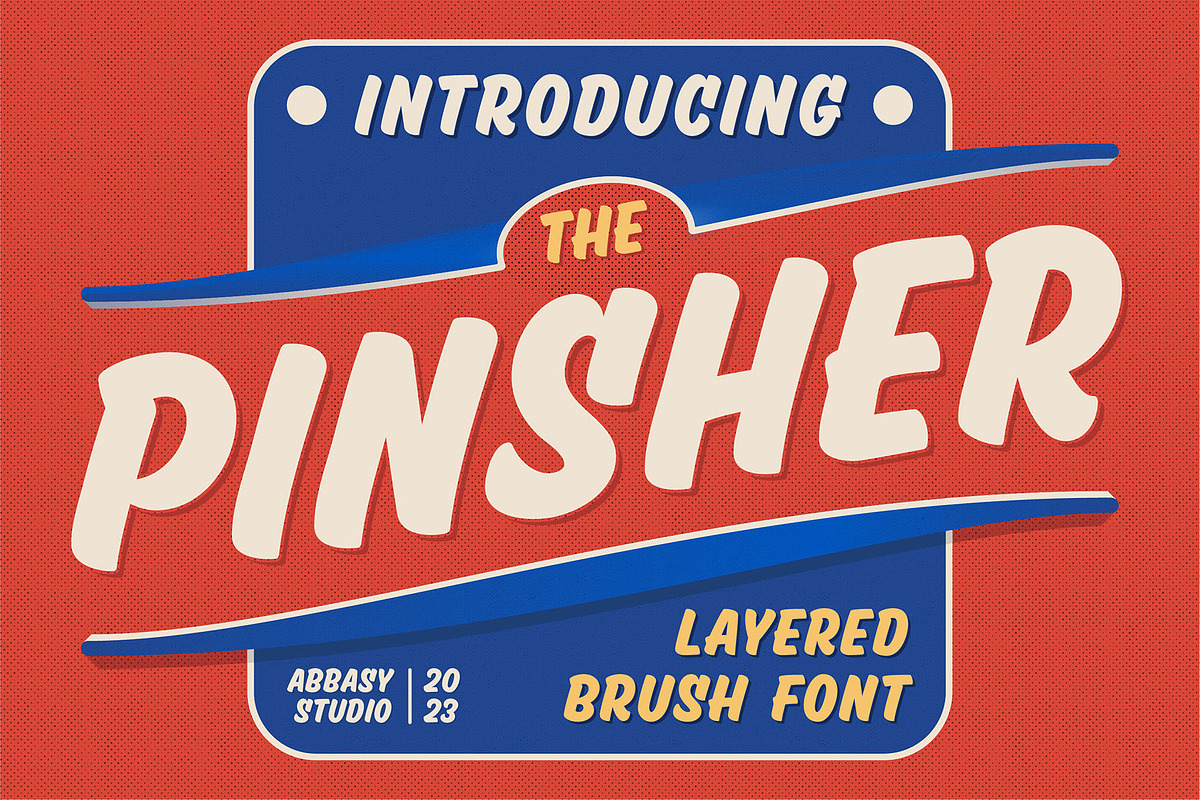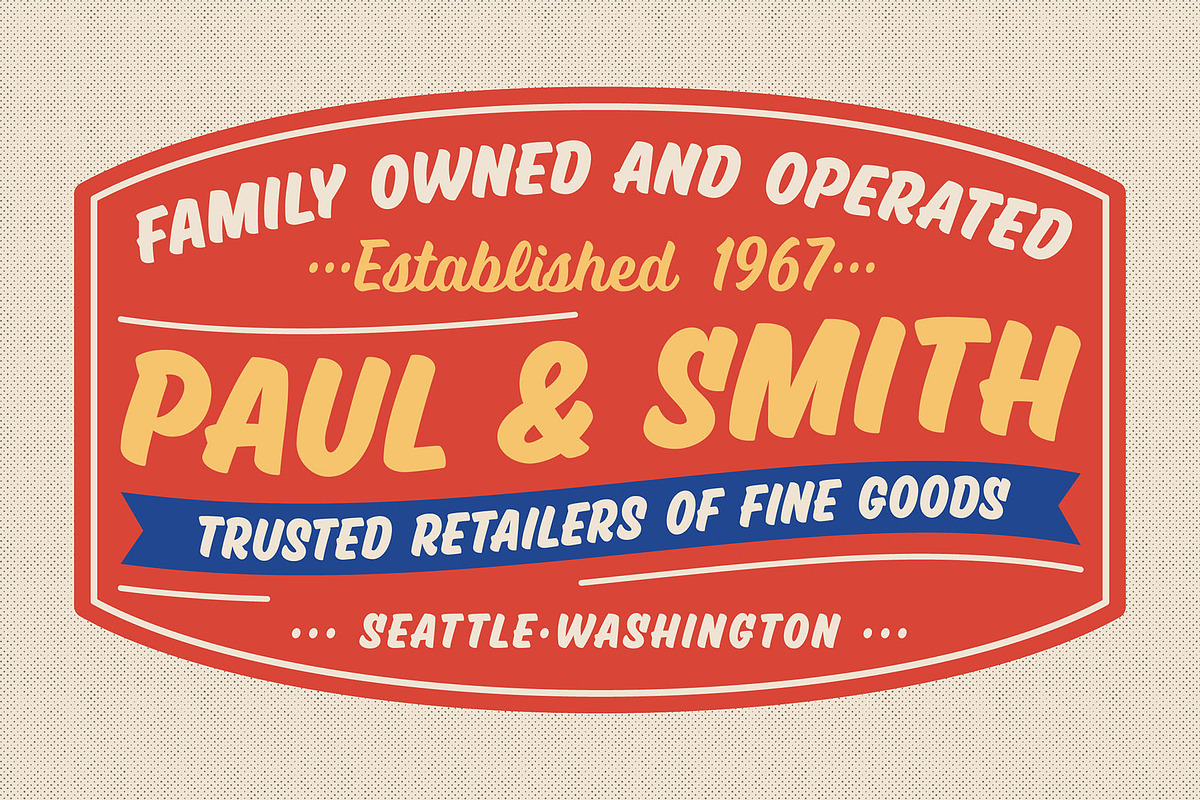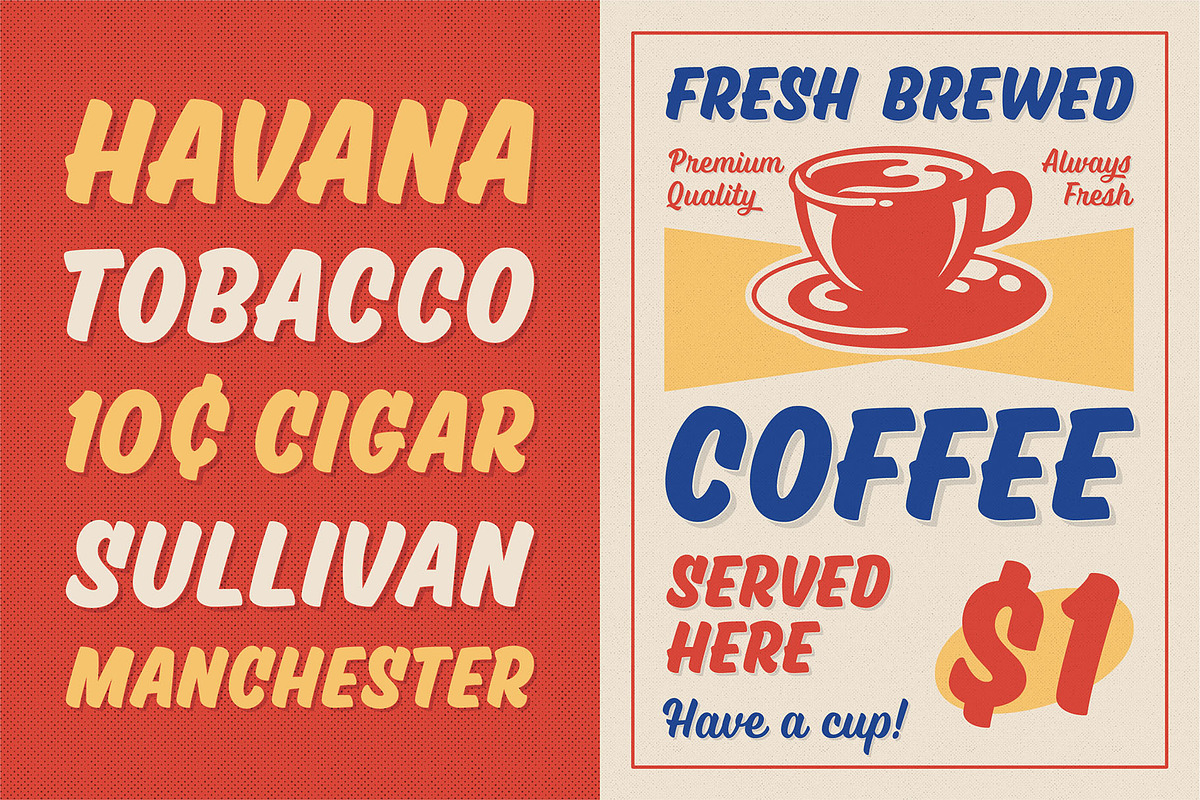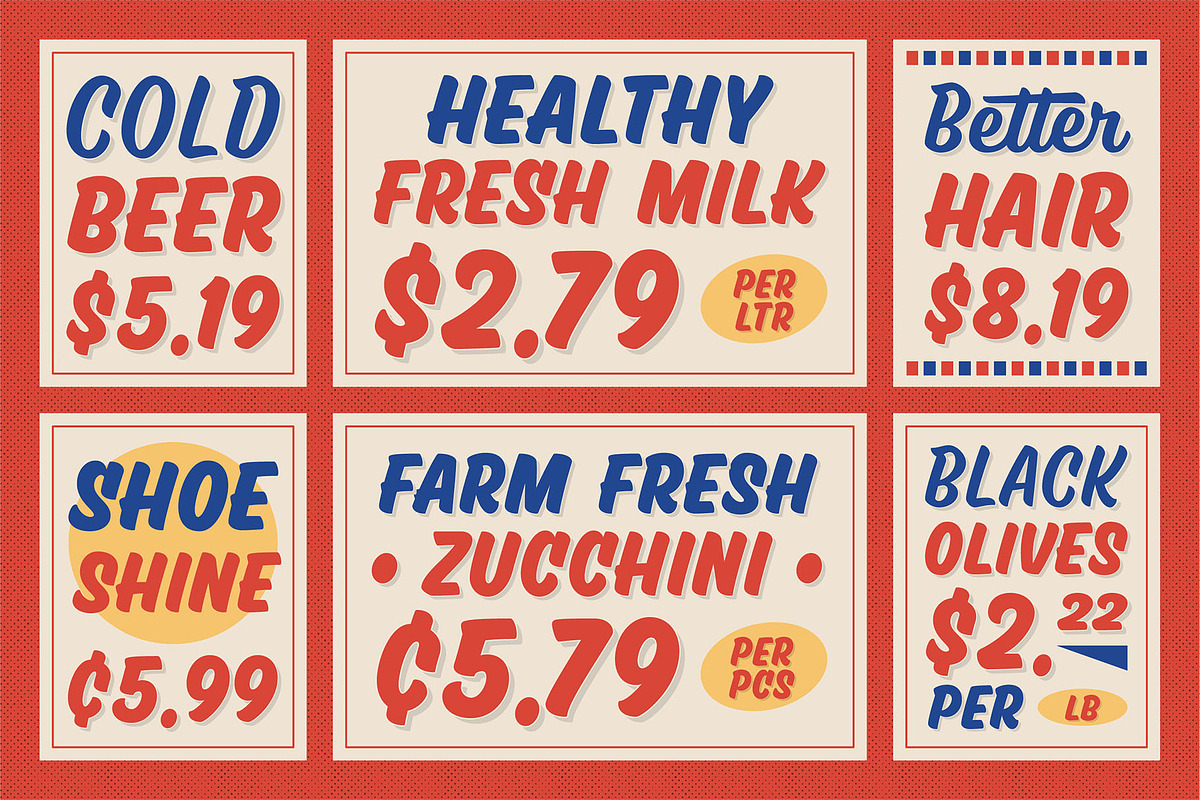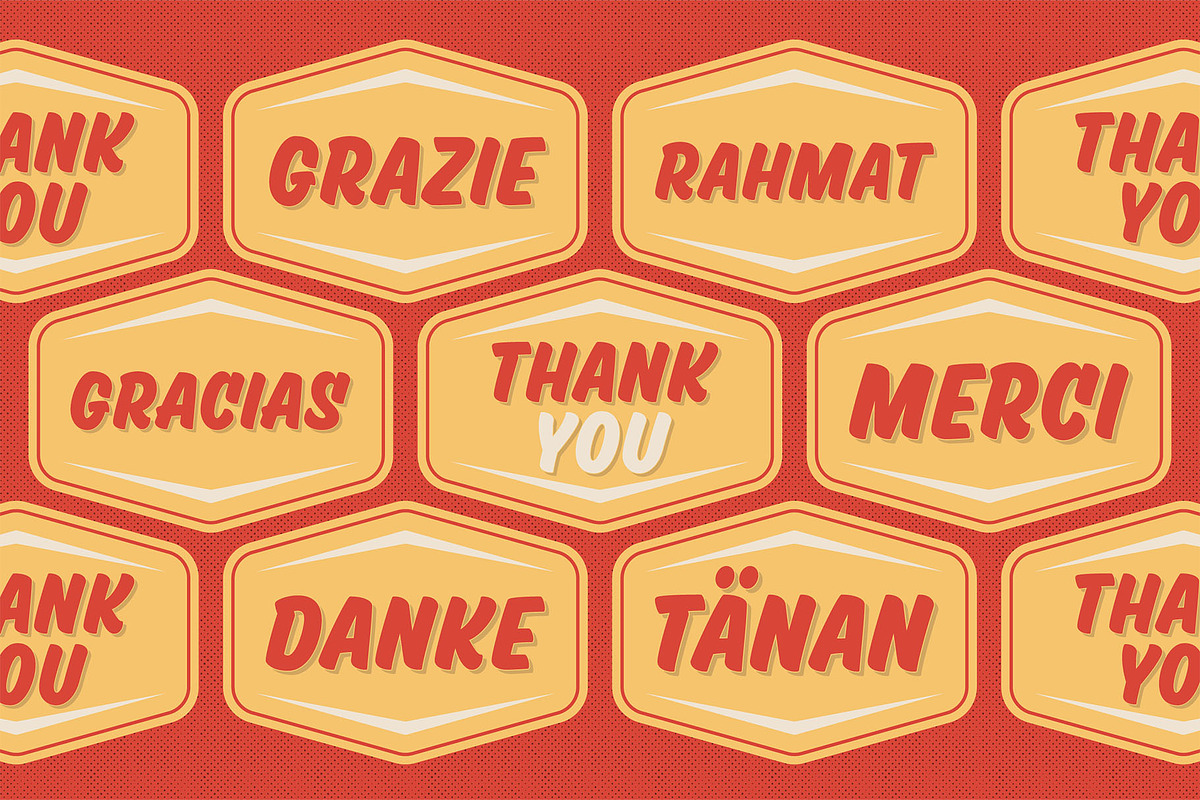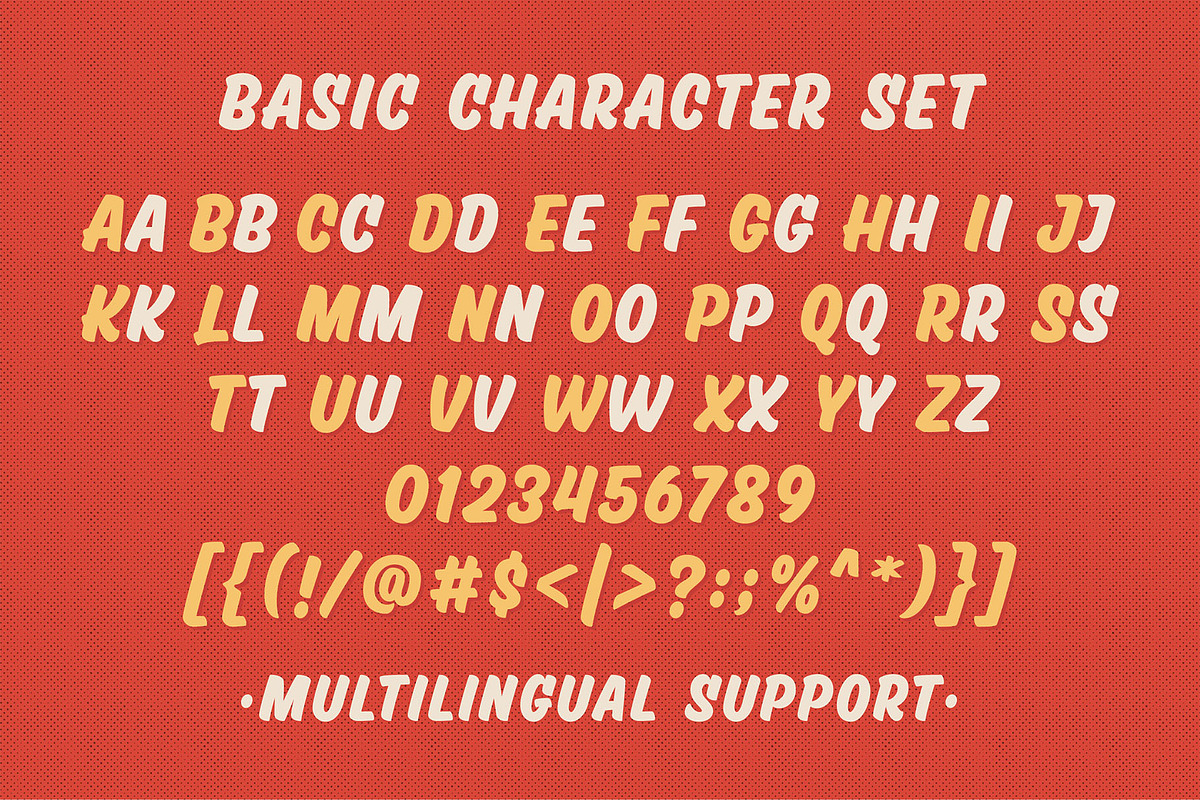
Pinsher
Pinsher, is a font inspired by Signs Painting, This font is based on retro hand-painted paper signs primarily seen in grocery stores from the 1940s through today. With additional shadow font you will be able to create the beautiful combination and bring retro touch to your artworks!